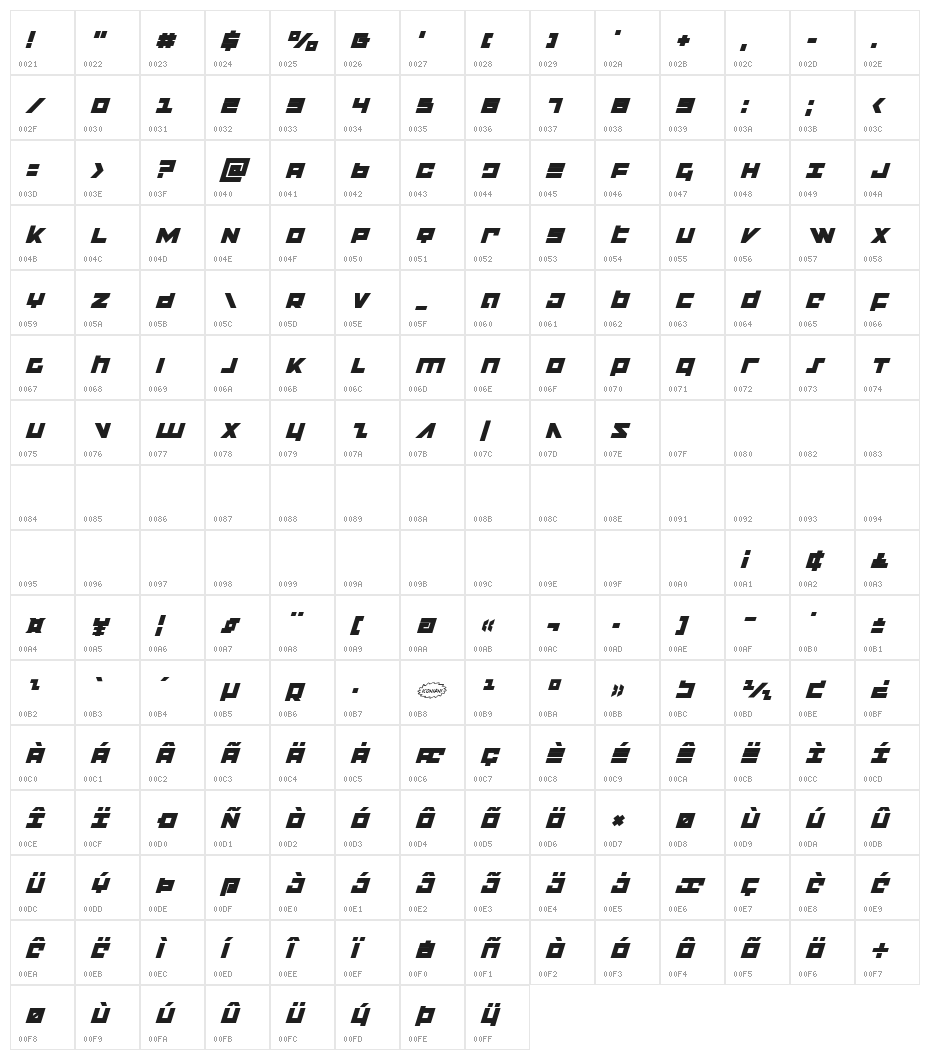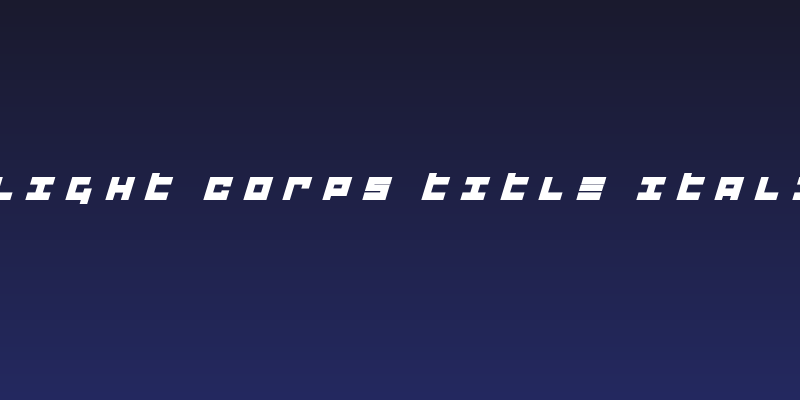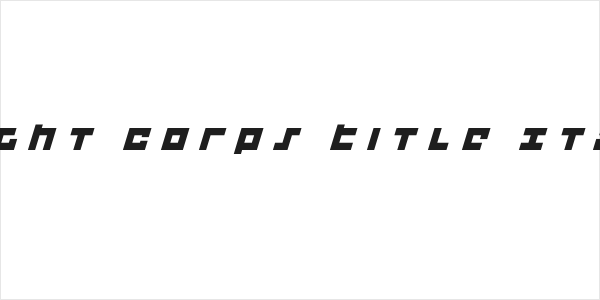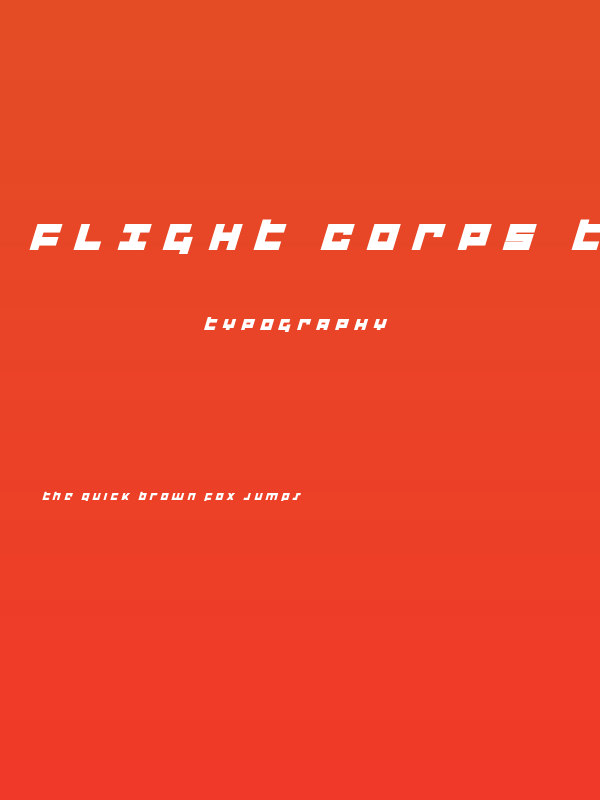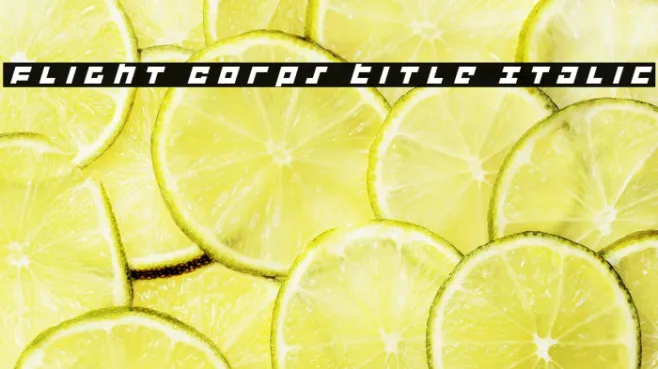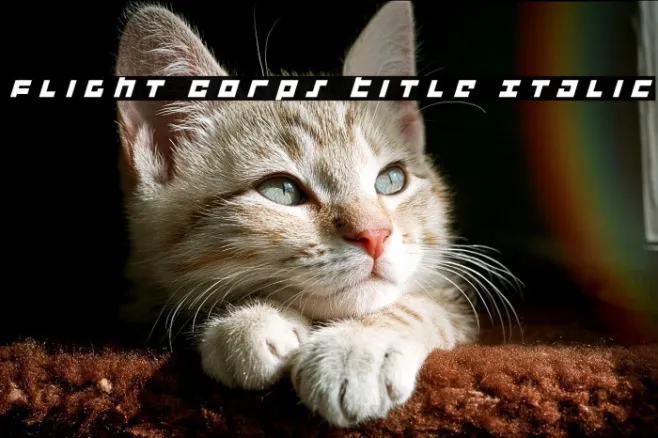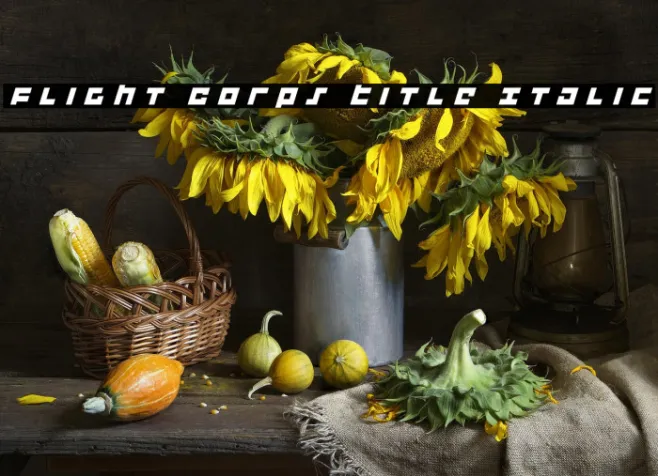
Flight Corps Title Italic Font
Flight Corps Title Italic Description
This font features a bold and dynamic style with a strong italic slant, giving it a sense of motion and energy. The characters are angular and geometric, with sharp edges and a futuristic aesthetic. The uppercase and lowercase letters maintain a consistent style, while the numerals and special characters complement the overall design. The font's unique appearance makes it stand out, ideal for projects that require a modern and edgy look.
| Proposed Projects | Ideal for sci-fi themed designs, video game titles, tech branding, and dynamic posters. |